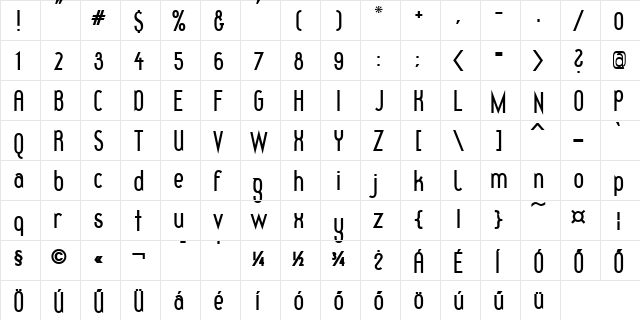
Redhead Goddess Bold
Design Context for Redhead Goddess Typeface
Redhead Goddess is a composed and adaptable typeface that performs quietly and consistently across a wide range of design contexts. Its bold stroke weight gives it real presence on the page.